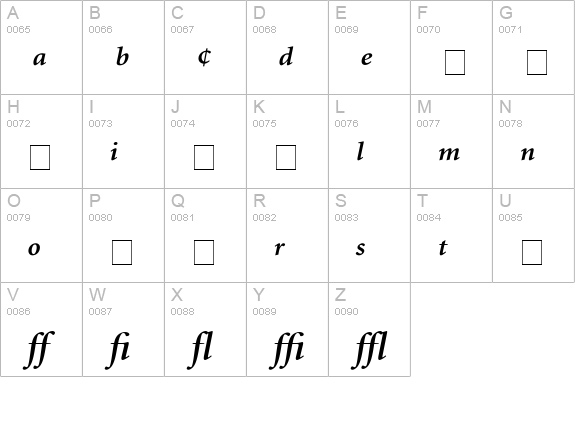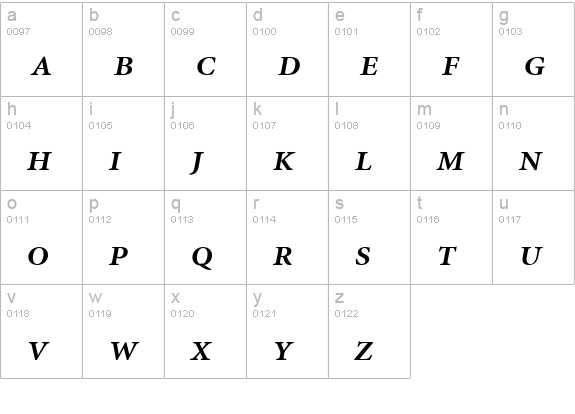
Atlantix Pro SSi Semi Bold Italic Font Details
Atlantix Pro SSi Semi Bold Italic is a strong, high-contrast, italic variant in the Atlantix typeface family \xE2\x80\x94 well suited to headlines, attention-grabbing titles, and strong calls-to-action.
Introducing Atlantix Pro SSi Semi Bold Italic font - a versatile typeface that strikes the perfect balance between modernity and sophistication. With its sleek design and subtle slant, this font exudes a sense of elegance and professionalism that is perfect for a wide range of design projects. Atlantix Pro SSi Semi Bold Italic font is the ideal choice for those seeking a font that is both stylish and easy to read. Its semi-bold weight adds a touch of boldness to any text, while the italic style brings a dynamic flair to your typography. The best part? Atlantix Pro SSi Semi Bold Italic font is available for free download at FontsMarket.com. Whether you're working on a branding project, designing a website, or creating eye-catching marketing materials, this font is sure to elevate your work to the next level. Don't miss out on the opportunity to enhance your designs with Atlantix Pro SSi Semi Bold Italic font - download it for free today and unleash your creativity!